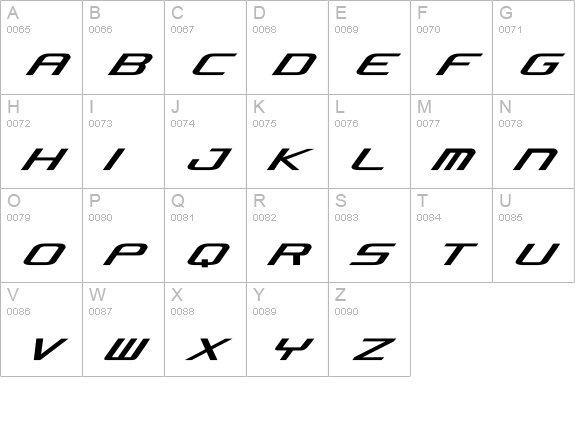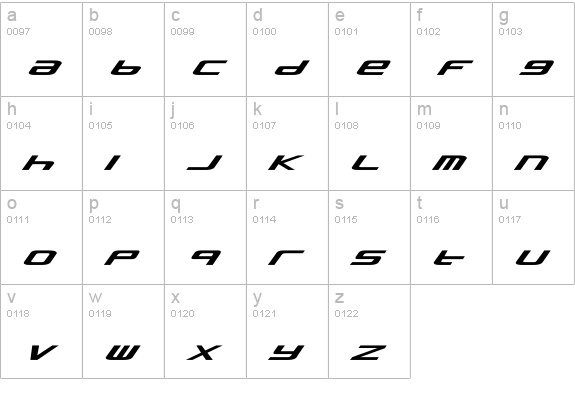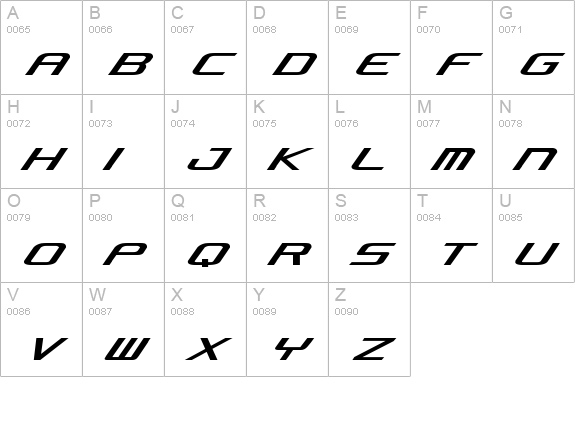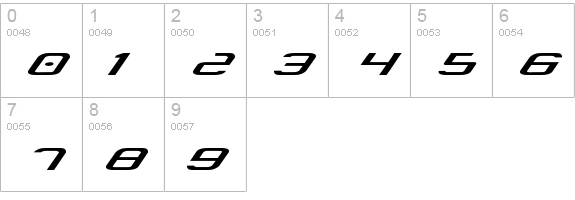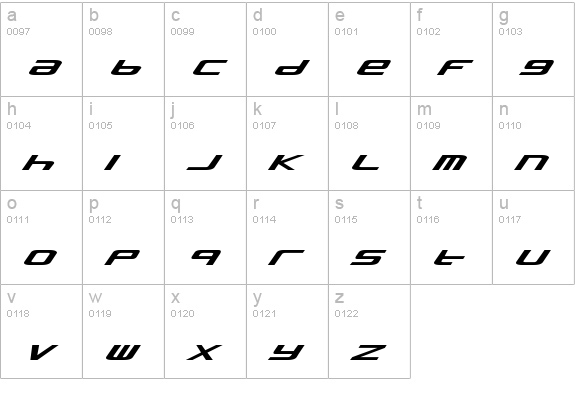
Concielian Alpha is a modern and stylish font that exudes sophistication and elegance. With its sleek lines and rounded edges, this font is perfect for adding a touch of class to any design project. Whether you're creating a logo, brochure, or website, Concielian Alpha will give your work a polished and professional look. The best part? Concielian Alpha is completely free to download at FontsMarket.com. This means that you can access this beautiful font without having to spend a dime. So why wait? Enhance your designs today with the timeless beauty of Concielian Alpha.